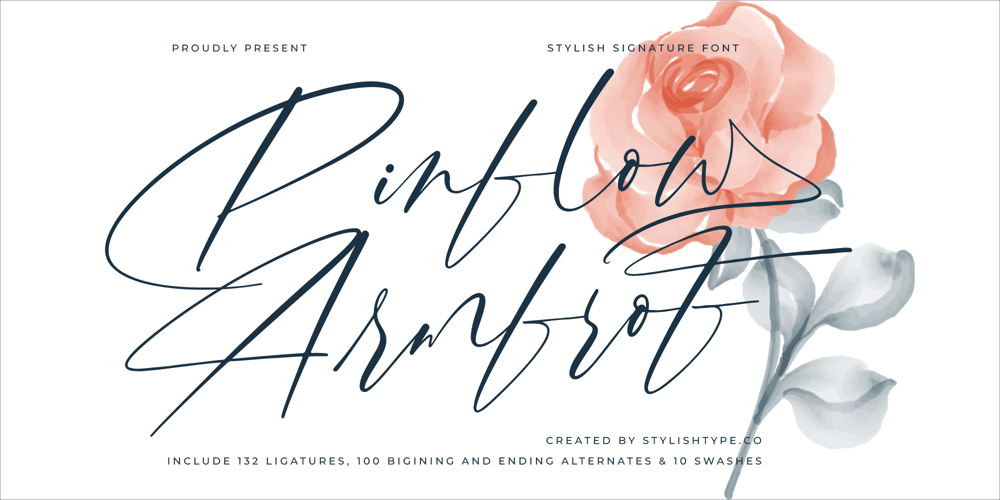
Pinflow Armfrof Font Family was designed by Heru Utama Putra and published by Stylishtype Studio. Pinflow Armfrof contains 2 styles and family package options. Pinflow Armfrof – Stylish Signature Font , from Stylishtype , Suitable for any projects such as: logos, branding projects, homeware designs, product packaging, mugs, quotes, posters, shopping bags, t-shirts, book covers, name card, invitation cards, greeting cards, label, photography, watermark, special events, and all your other luxury and beautiful projects that need a Luxury Script taste.